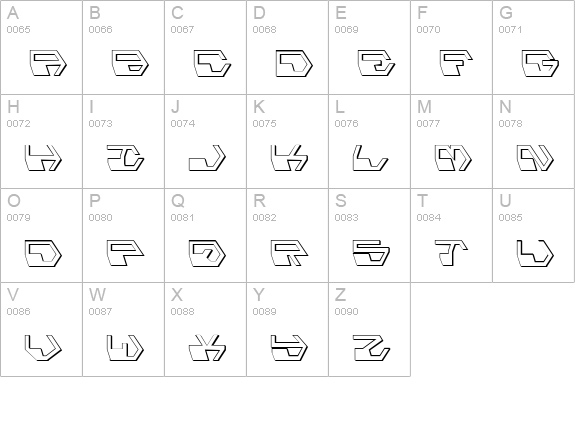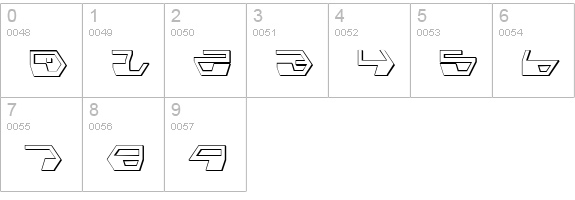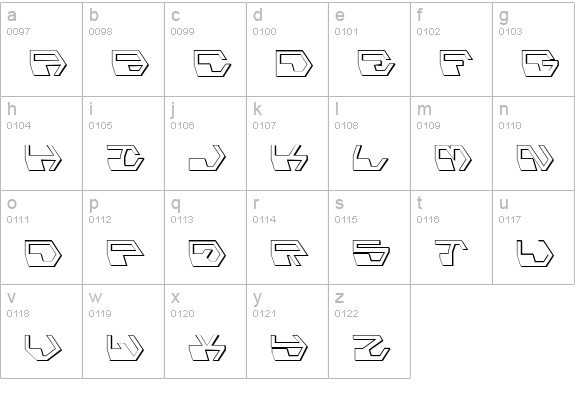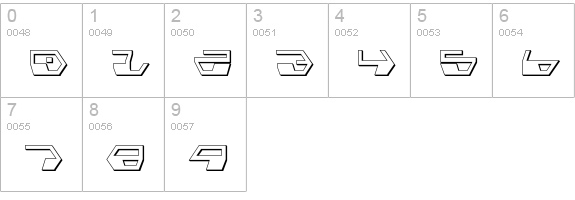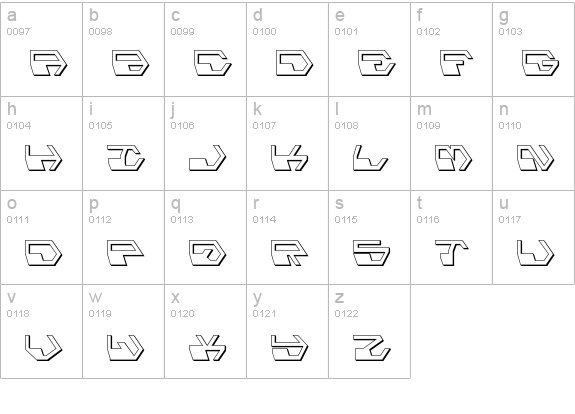
Deranian Shadow is a captivating and mysterious font that exudes an aura of intrigue and sophistication. Its sleek and bold letterforms are perfect for adding a touch of elegance and drama to any design project. The sharp angles and dynamic curves of this font give it a unique and modern look that is sure to make a statement. What sets Deranian Shadow apart is not just its striking appearance, but also the fact that it is available for free download at FontsMarket.com. This means that you can easily access this stunning font and use it in your projects without any cost. Whether you're designing a poster, logo, or website, Deranian Shadow is sure to elevate your work and leave a lasting impression on your audience. Download it now and unleash the power of this exceptional font in your designs.